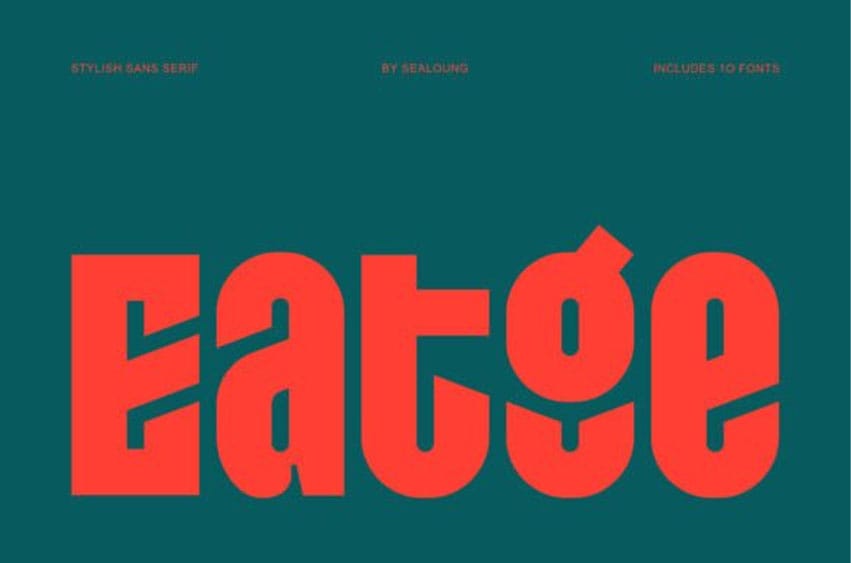
Eatge Font is a stylish sans-serif typeface family with a refined, clean, and versatile aesthetic. It features weights ranging from Thin to Bold, along with matching Italic styles, offering complete flexibility for any creative or professional project.
The letterforms are thick and impactful, featuring distinctive diagonal cuts and minimalistic shapes that give the font a striking, modular appearance. Each character maintains a solid structure while incorporating creative elements like sharp angles and unexpected breaks, making the typeface both eye-catching and unique.
Eatge includes 10 different font styles, offering flexibility for a variety of creative applications. It’s ideal for headlines, logos, branding, posters, and other design projects that require a strong visual presence. The combination of contemporary design and retro undertones makes it a versatile choice for bold, statement-making typography.
Designed with a perfect balance of sleek lines and minimalist forms, Eatge works beautifully across a wide range of design uses, including:
Branding and Logo Design
Headlines and Editorial Layouts
Posters and Banners
Websites and Mobile Interfaces
Presentations and Print Media.